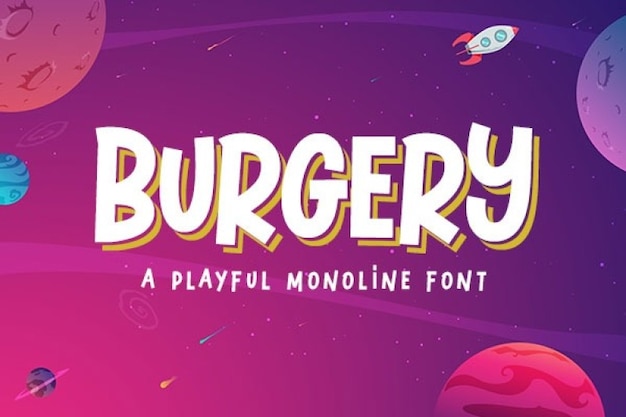
Burgery Font
This playful Burgery font will make your project more amusing, imaginative and dynamic. It's an all-caps non-serif typeface with irregular strokes, but rich in legibility. Its multipurpose nature is suitable for multiple display formats, such as: t-shirts, books for children, logo and products from a toy shop or any child-related business. Download it from Freepik and cheer up your audience!